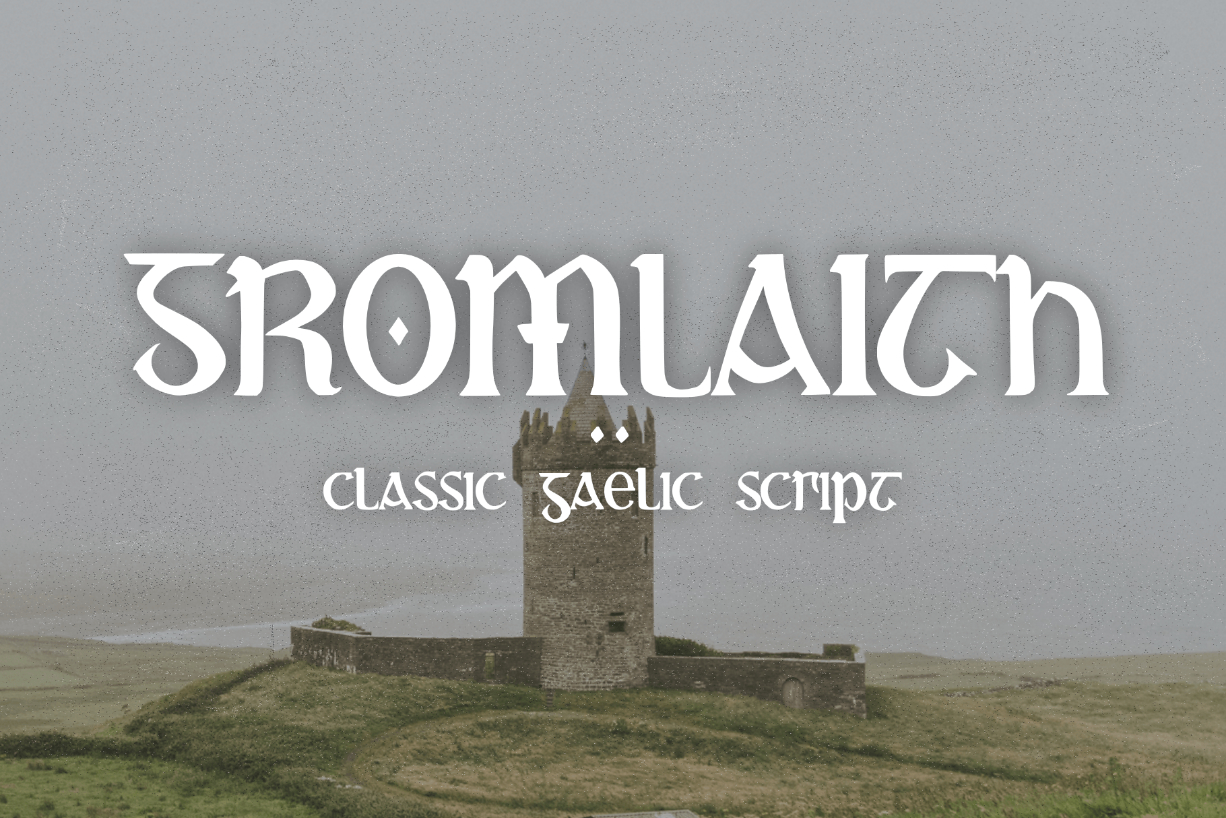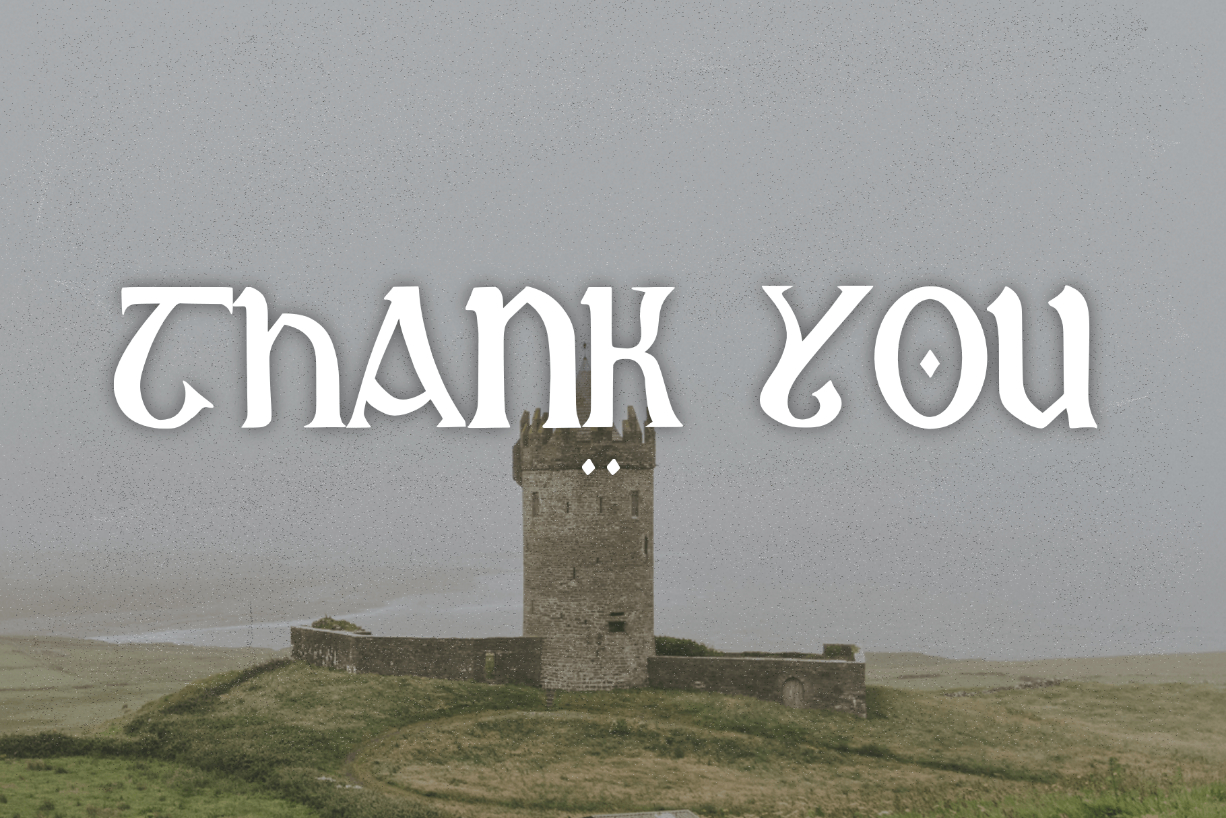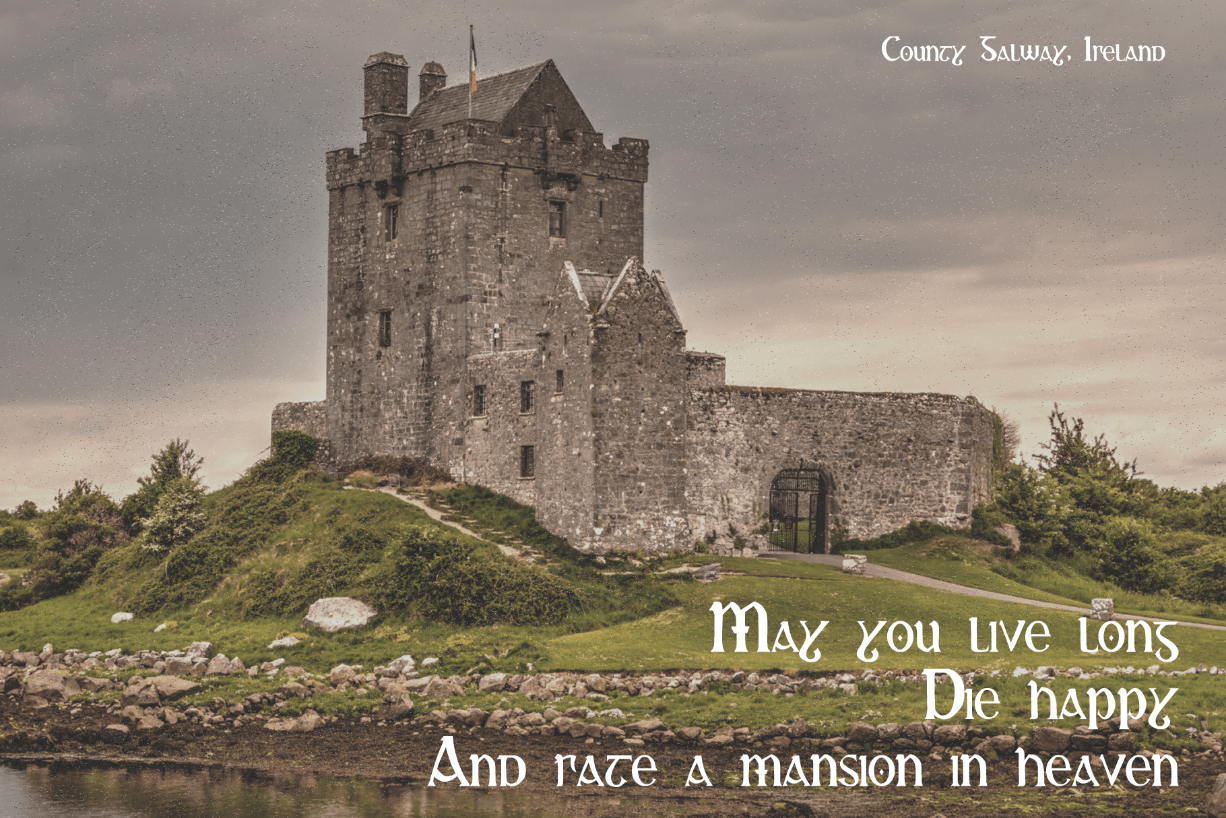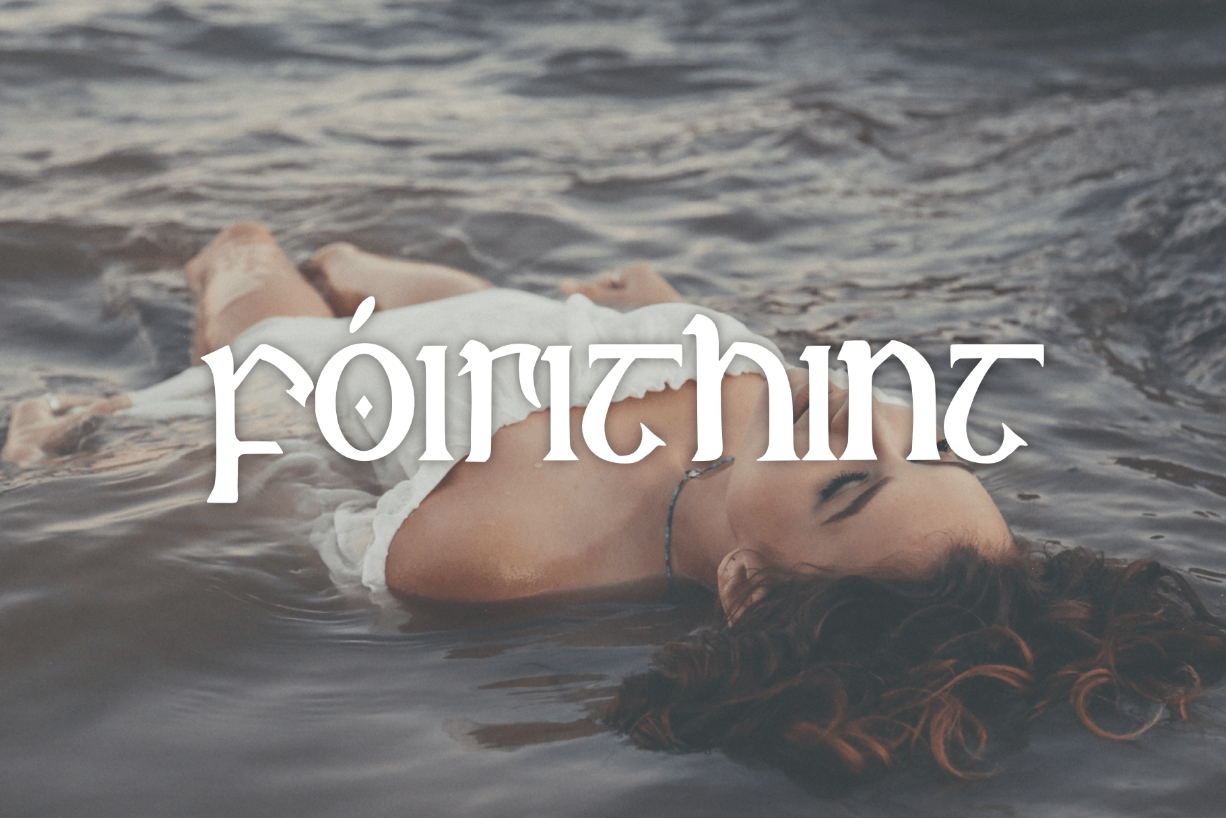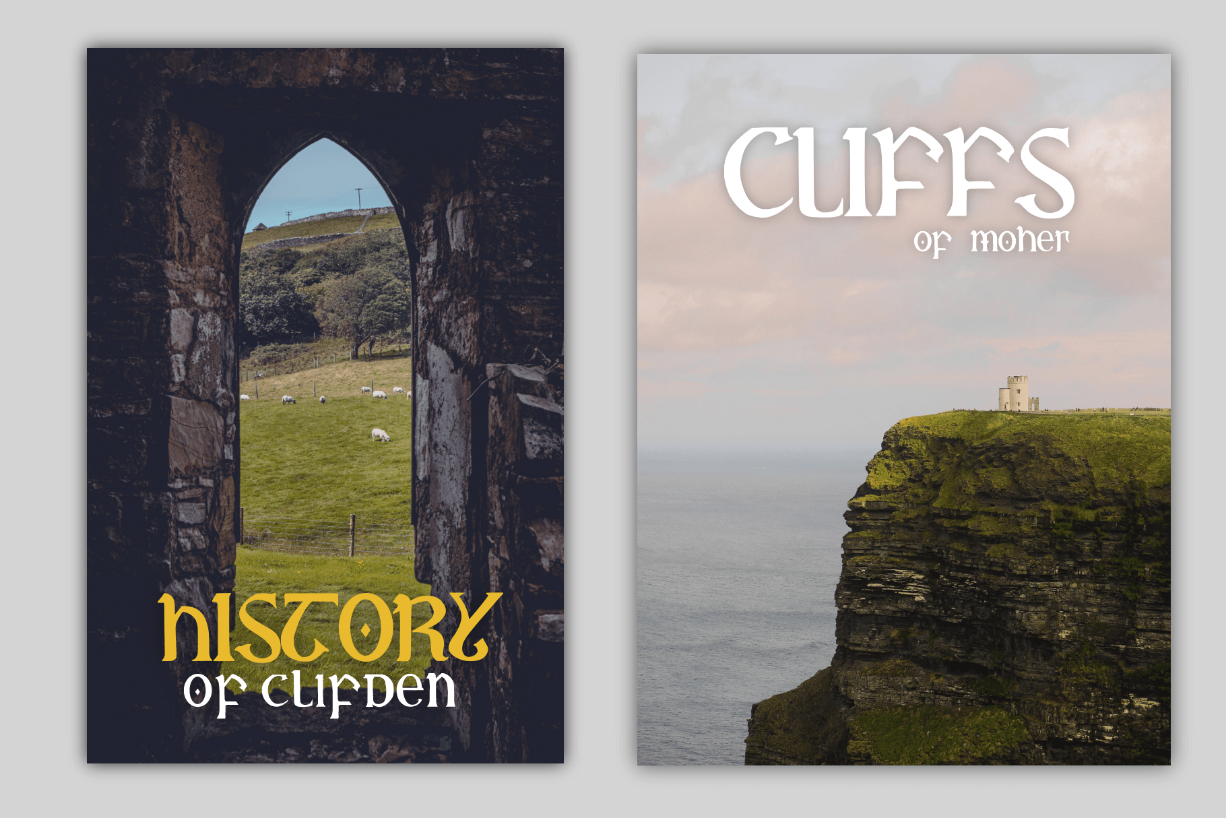
About Gromlaith Font
This blackletter font is inspired by the classical Gaelic script that was used from the 16th until mid 18th Century. Featured with beautiful lines and bold accents, this font is good for decorative typesettings such as headlines, traditional newspapers, pub signs, greetings cards, and advertising purposes. You can even use this typeface for your unique logotype.